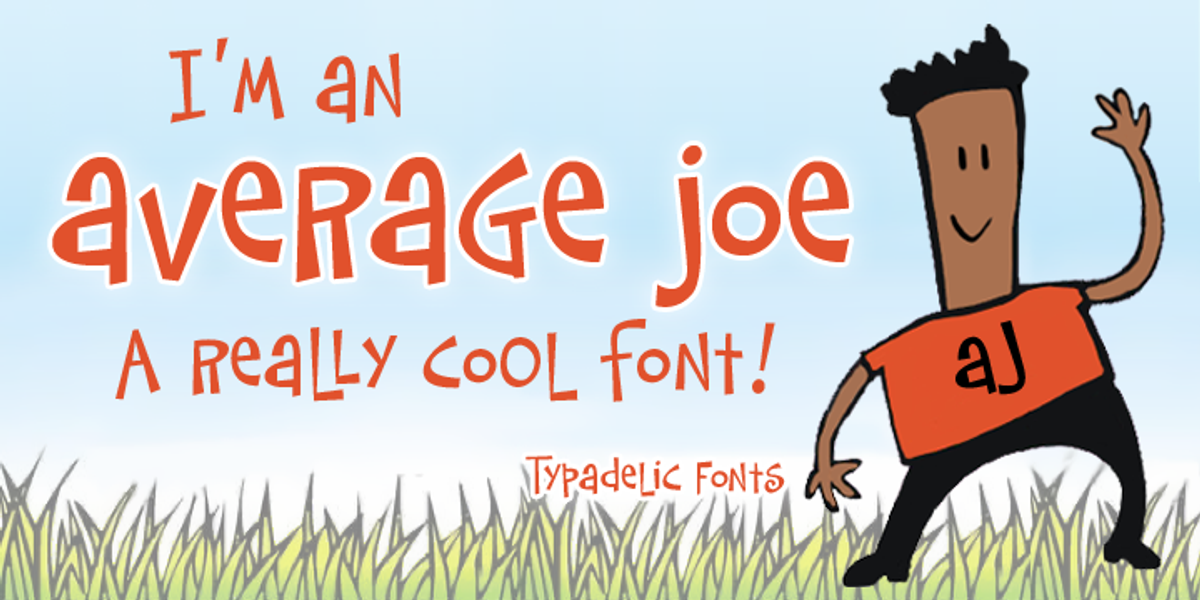
Average Joe
Average Joe is a hand-drawn display font inspired by mid-20th century typestyles. It's characterized by its bouncy and uneven letterforms, giving it a whimsical and playful feel. The font includes extra characters designed to enhance the flow of text when typing, allowing for creative combinations of upper and lowercase letters.